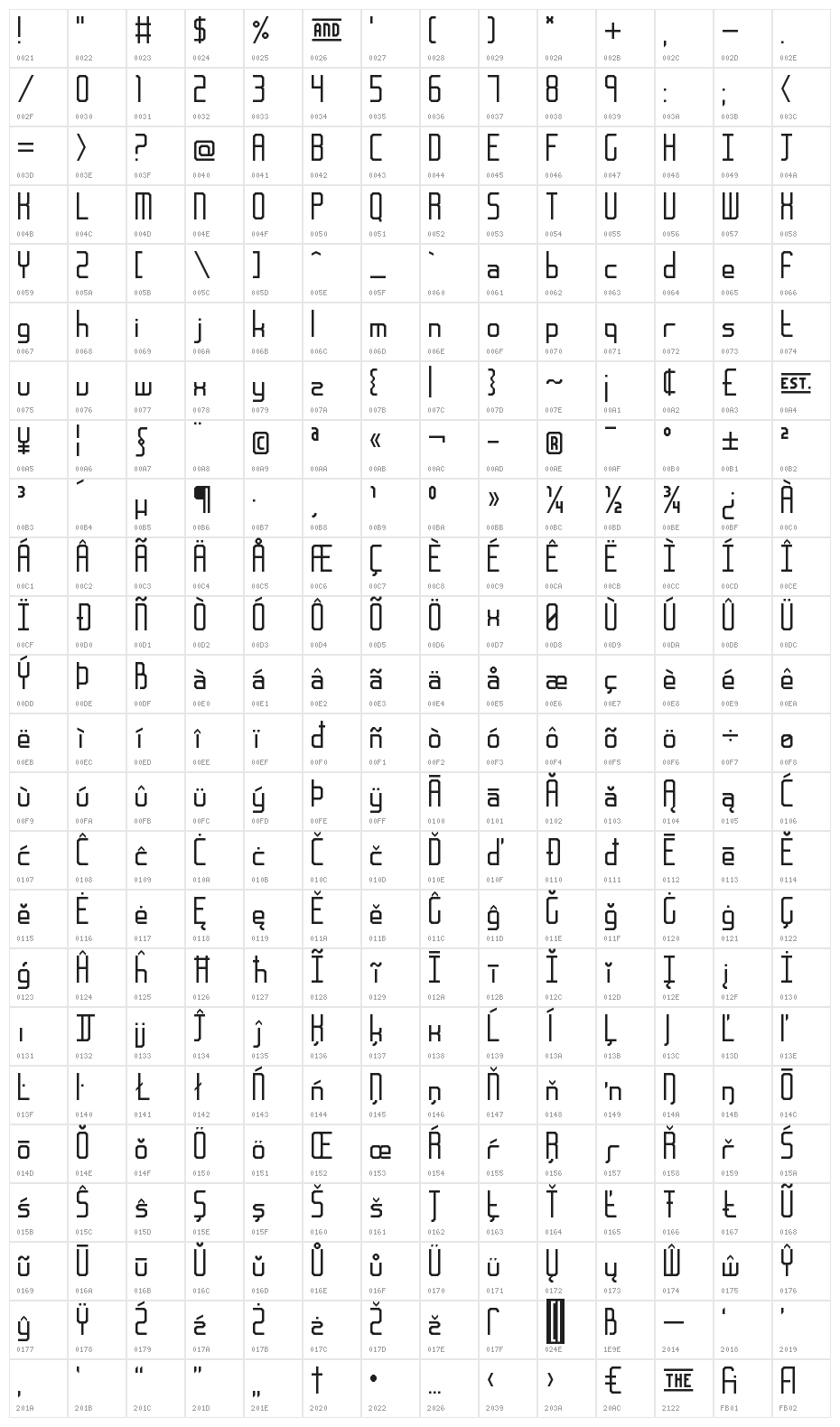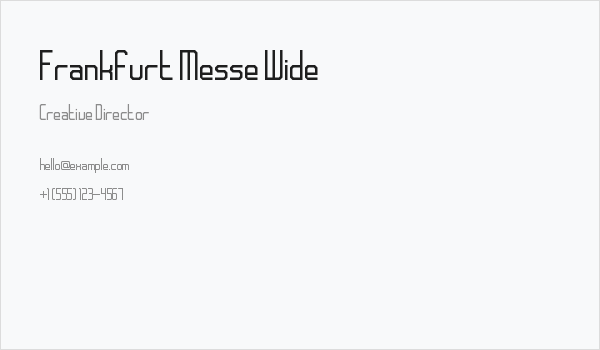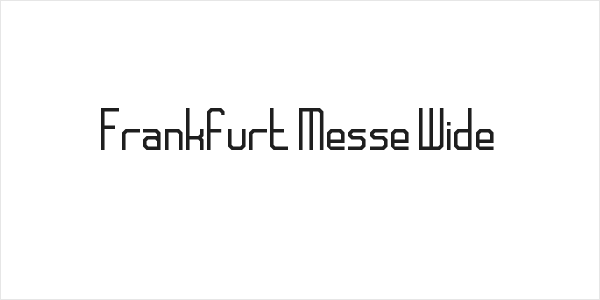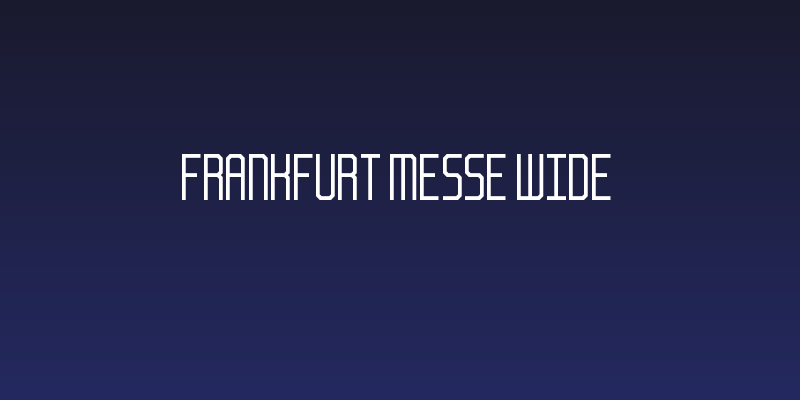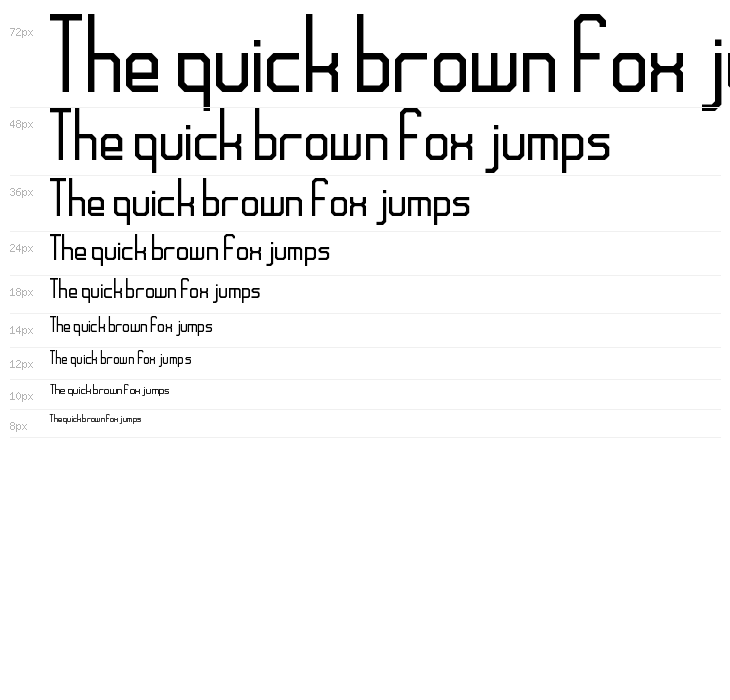
Frankfurt Messe Wide Font
Frankfurt Messe Wide Description
This font features a geometric and structured design with a modern and technical appearance. The characters are composed of straight lines and sharp angles, giving it a futuristic and digital feel. The uppercase letters are bold and commanding, while the lowercase letters maintain a consistent style with slightly softer edges. The numerals are clear and easy to read, matching the overall aesthetic. Special characters are distinct and well-integrated into the font's design, ensuring versatility in various applications. The font's unique style makes it suitable for projects that require a contemporary and innovative look.
| Use Case | Logos, Headlines, Digital interfaces |
| Proposed Projects | Ideal for technology branding, digital interfaces, video game graphics, and modern advertising. |